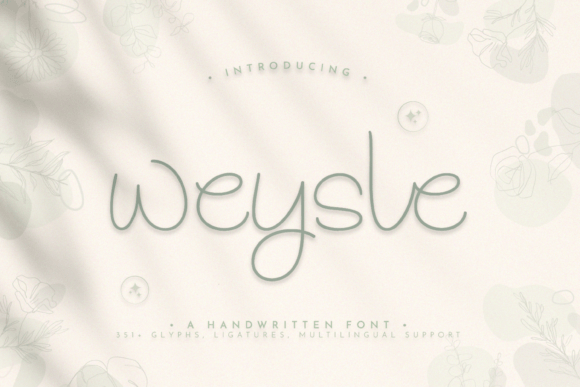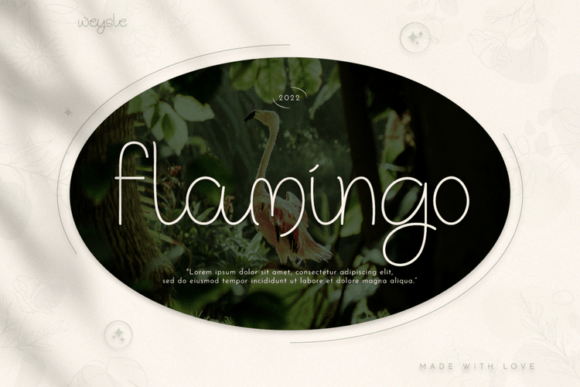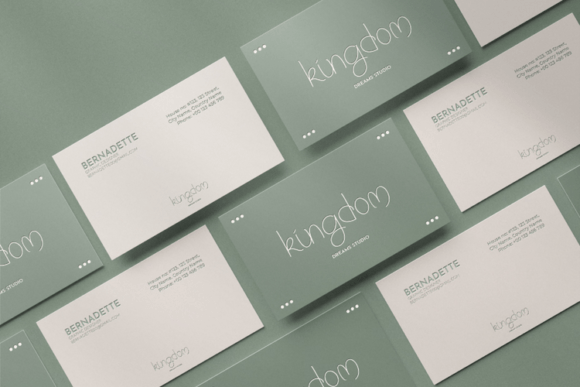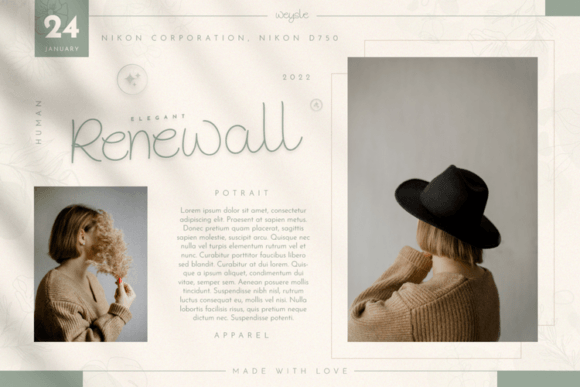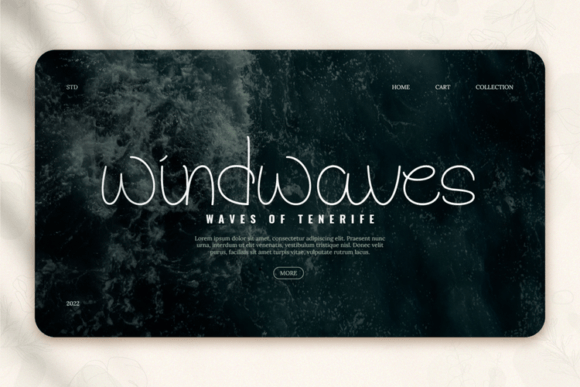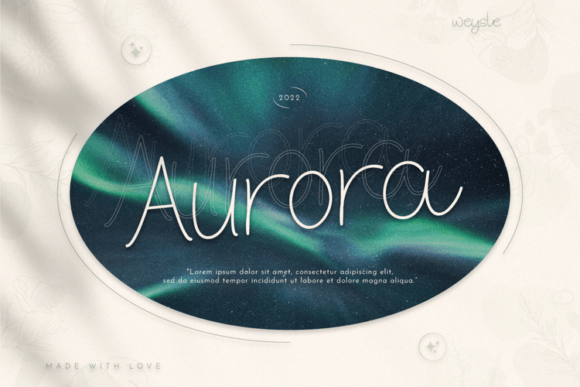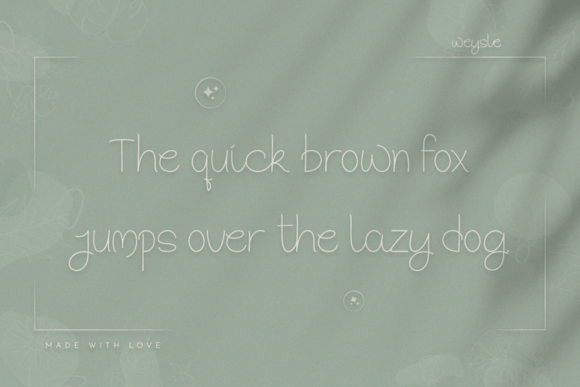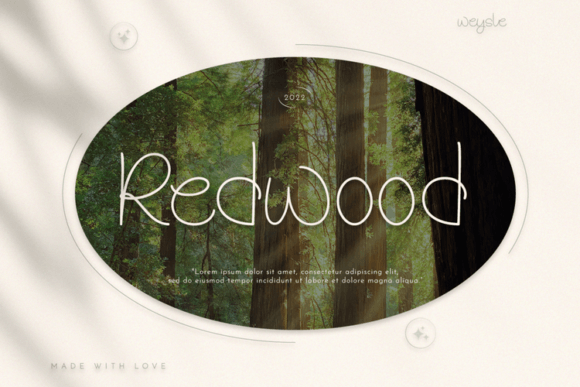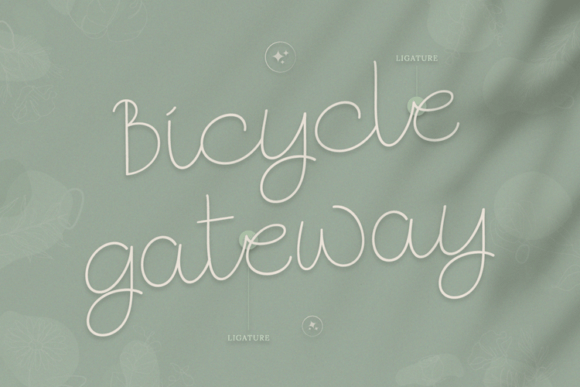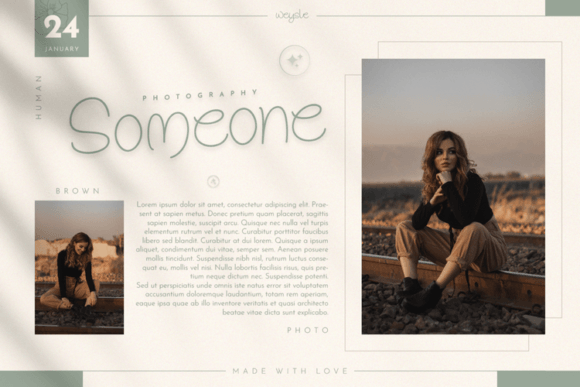
Weysle Font
About Weysle Font
“Weysle” presents itself as a delightful and friendly handwritten font, designed to infuse a sense of fun into a variety of creative projects. This font emerges as a valuable asset for your font library, offering versatility and the potential to enhance the visual appeal of any creation, regardless of the topic.
The defining feature of “Weysle” is its playful and friendly demeanor. The characters are crafted with a sense of spontaneity and charm, evoking an approachable and inviting vibe. This makes the font an excellent choice for projects that aim to communicate a lighthearted and joyful atmosphere.
The versatility of “Weysle” is evident in its adaptability to different design contexts. Whether you’re working on social media graphics, branding materials, invitations, or any other creative endeavor, this font seamlessly integrates, adding a touch of fun to the visual communication.
The handwritten nature of “Weysle” contributes to its authentic and organic feel. This quality makes it particularly well-suited for designs that seek to convey a personal touch. From casual and informal projects to those requiring a more relaxed and approachable tone, “Weysle” offers a friendly typographic solution.
Incorporating “Weysle” into your font library is akin to welcoming a versatile and joyful companion for your creative endeavors. The font becomes a go-to choice when you want to infuse a sense of fun and friendliness into your designs, making it an invaluable resource for designers aiming to diversify their typographic palette.
In conclusion, “Weysle” is more than just a font; it’s an expressive tool that adds a layer of playfulness and friendliness to your creations. With its potential to enhance any topic or theme, “Weysle” becomes a delightful addition to your font collection, promising to bring a touch of joy and creativity to your design projects.